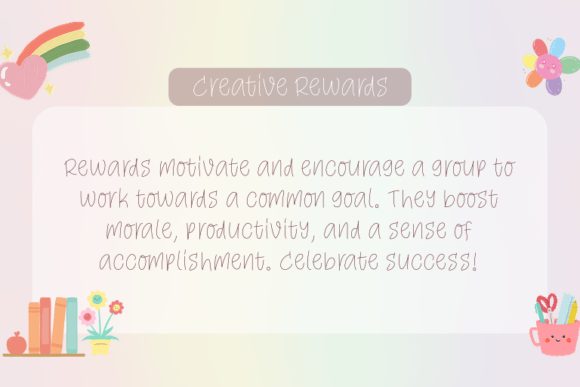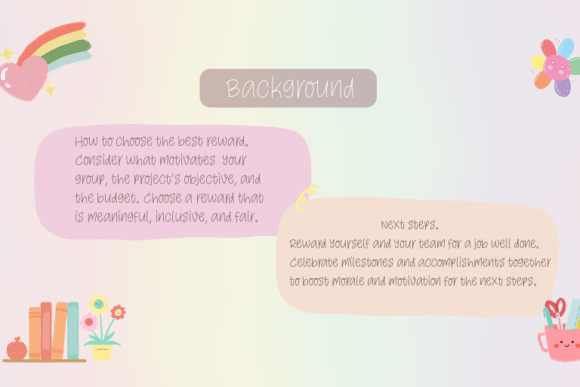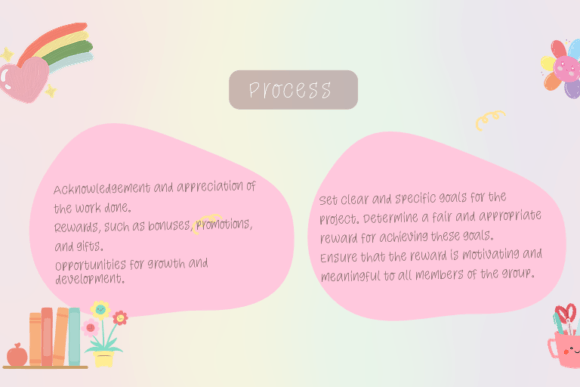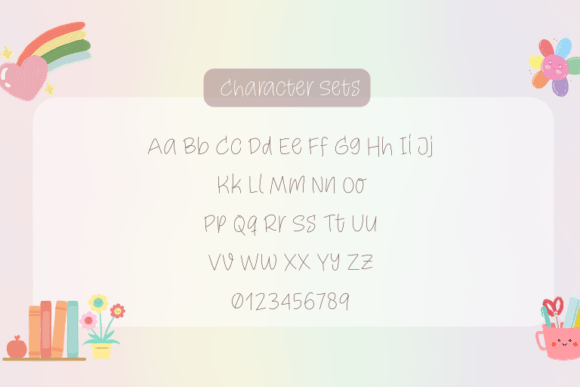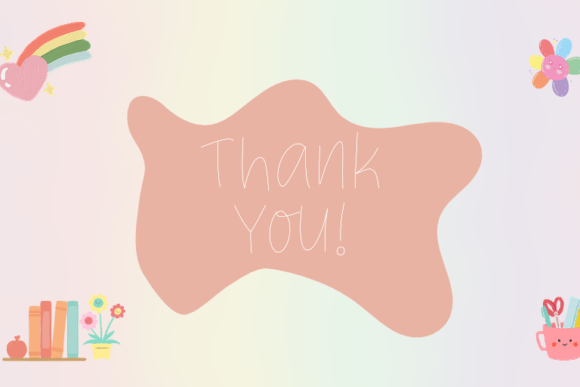
Introducing Hefty Reward Font: The Ultimate Go-to for Creative Projects
Are you on the hunt for a font that can add a touch of whimsy and fun to your creative projects? Look no further than Hefty Reward Font! This handwritten single-line font is perfect for a variety of applications, from crafts and digital design to presentations and greeting cards. In this article, we’ll dive into the features and benefits of Hefty Reward Font, and explore why it’s sure to become your new favorite go-to font.
What is Hefty Reward Font?
Hefty Reward Font is a unique and playful handwritten font that’s designed to bring a smile to your face. Its single-line design makes it versatile and easy to use, while its quirky charm adds a touch of personality to any project. Whether you’re a designer, crafter, or simply someone who loves to get creative, Hefty Reward Font is sure to delight.
Key Features of Hefty Reward Font
- Handwritten single-line design: Hefty Reward Font features a beautiful, handwritten single-line design that’s perfect for a variety of creative projects.
- Fun and quirky: This font is designed to add a touch of whimsy and fun to your projects, making it perfect for crafts, digital design, and more.
- Versatile: Hefty Reward Font can be used for a wide range of applications, from presentations and greeting cards to crafts and digital design.
- Easy to use: This font is easy to read and use, making it perfect for designers and crafters of all skill levels.
Uses for Hefty Reward Font
Hefty Reward Font is a versatile font that can be used for a wide range of creative projects. Here are just a few ideas to get you started:
- Crafts: Use Hefty Reward Font to add a personal touch to your crafts, such as scrapbooking, card making, and more.
- Digital design: This font is perfect for digital designers who want to add a touch of whimsy to their designs, such as social media graphics, blog posts, and more.
- Presentations: Hefty Reward Font is a great choice for presentations, as it adds a touch of personality and fun to your slides.
- Greeting cards: Use this font to create unique and personalized greeting cards for any occasion.
Why Choose Hefty Reward Font?
So why choose Hefty Reward Font over other fonts? Here are just a few reasons why this font stands out:
- Unique and playful design: Hefty Reward Font features a unique and playful design that’s sure to grab attention.
- Easy to read: This font is easy to read, making it perfect for a wide range of applications.
- Versatile: Hefty Reward Font can be used for a wide range of creative projects, making it a great addition to your font library.
Tips for Using Hefty Reward Font
Here are a few tips for getting the most out of Hefty Reward Font:
- Experiment with different sizes: Hefty Reward Font looks great in a variety of sizes, so don’t be afraid to experiment to find the perfect size for your project.
- Pair with other fonts: This font pairs well with a variety of other fonts, so try pairing it with some of your favorite fonts to create a unique look.
- Use it for headlines and titles: Hefty Reward Font is perfect for headlines and titles, as it adds a touch of personality and fun to your text.
In conclusion, Hefty Reward Font is a fun and quirky handwritten single-line font that’s perfect for a wide range of creative projects. Its unique and playful design makes it a great choice for designers and crafters who want to add a touch of whimsy to their work. With its versatility, ease of use, and unique charm, Hefty Reward Font is sure to become your new go-to font. So why wait? Download Hefty Reward Font today and start adding a touch of fun and personality to your creative projects!